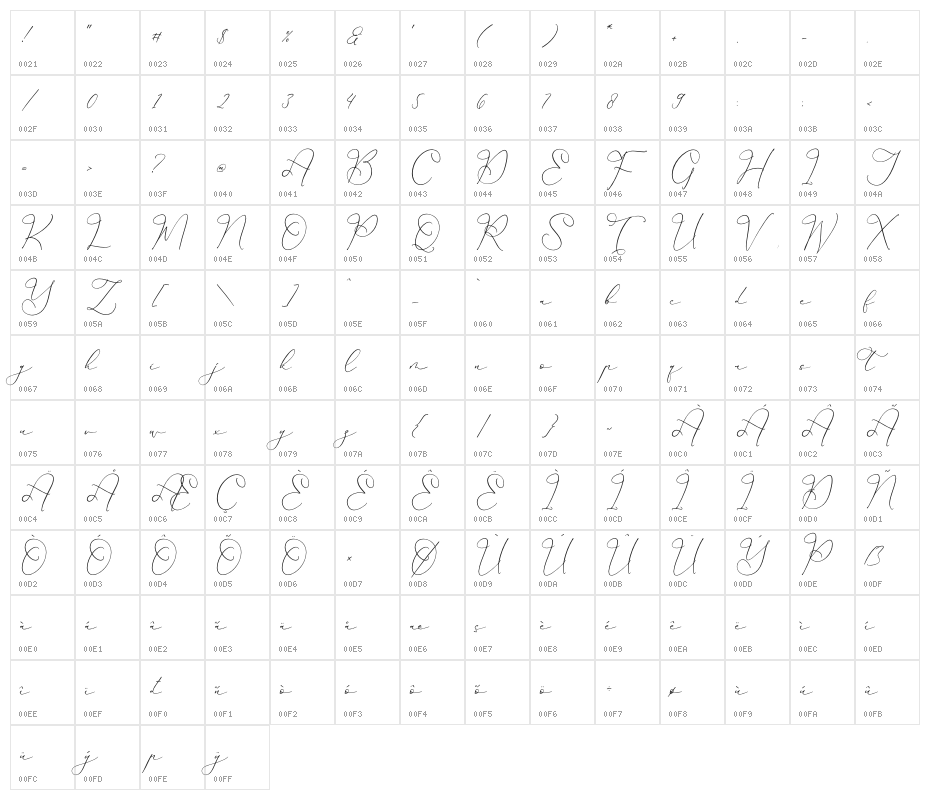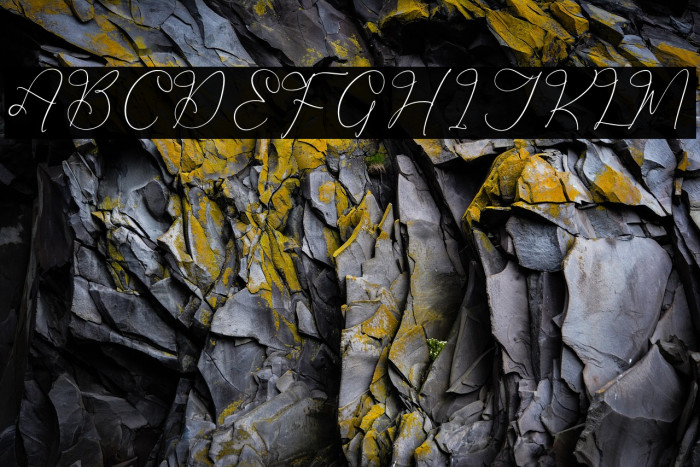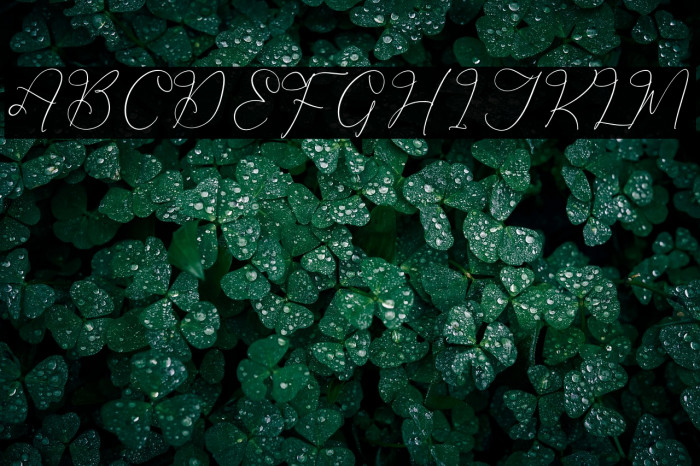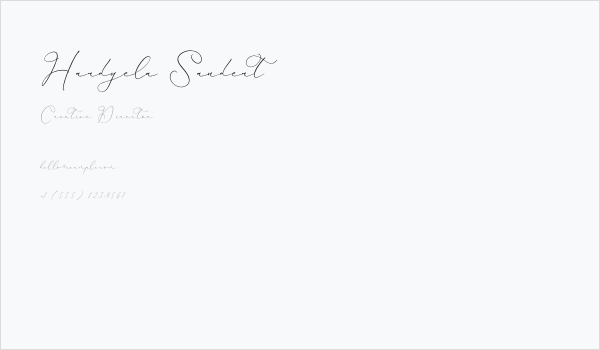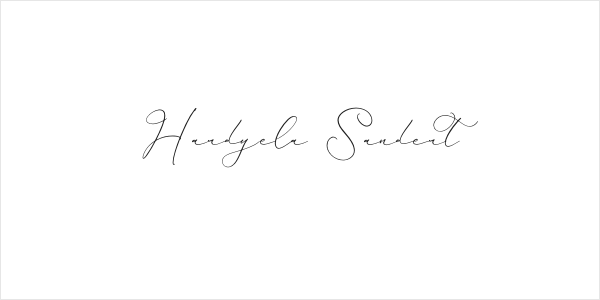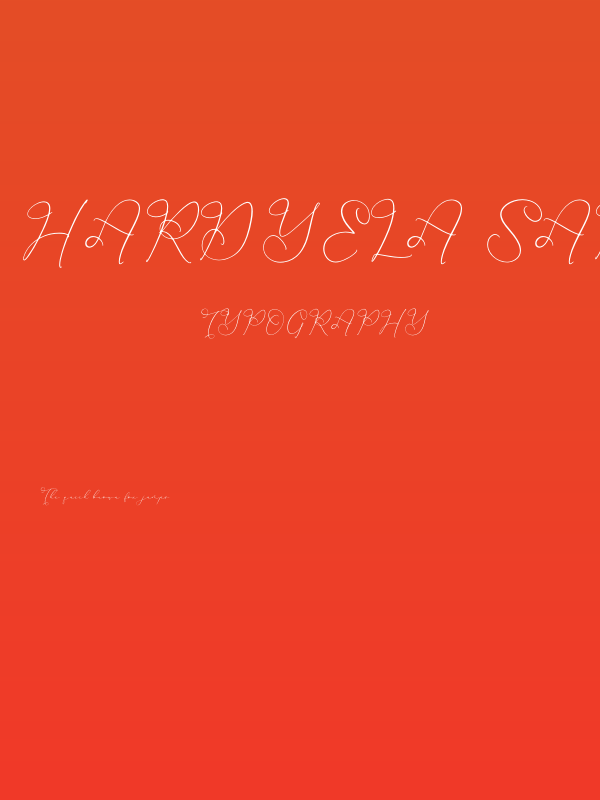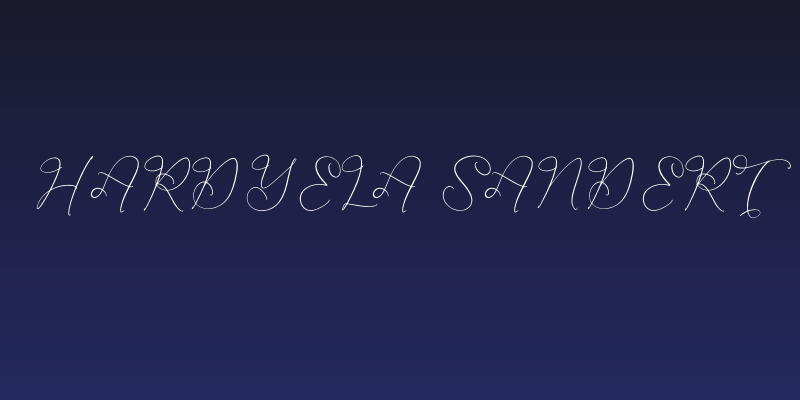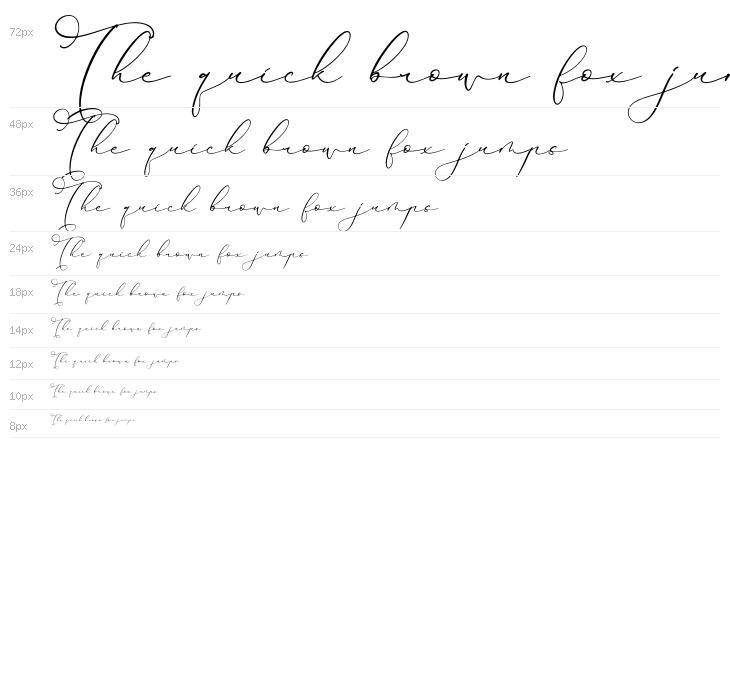
Hardyela Sandert Font
Hardyela Sandert Description
Elegant and flowing script font with a handwritten style, featuring delicate and connected letterforms.
| Proposed Projects | Wedding invitations, greeting cards, personal branding. |